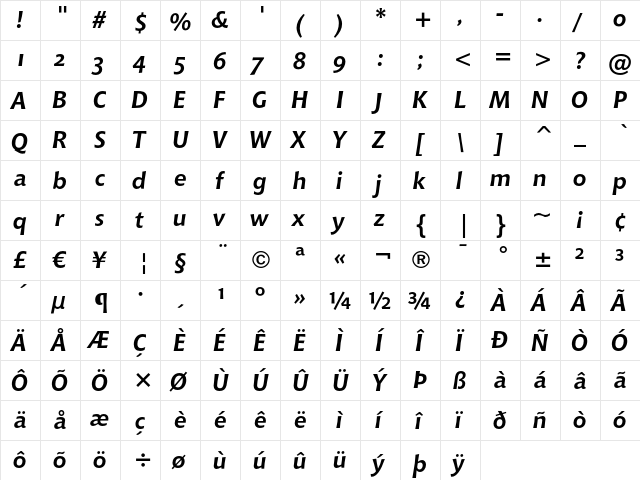
Bitstream Chianti Bold Italic OSF Font Preview
Design Context for Bitstream Chianti Typeface
Bitstream Chianti is a composed and adaptable typeface that performs quietly and consistently across a wide range of design contexts. The dynamic lean of this cut emphasises speed and emphasis in any layout. The heavy weight commands attention and anchors typographic hierarchies.
Pro Tip: Try Bitstream Chianti for annotation and caption copy alongside an upright companion — the contrast in angle creates a dynamic but ordered typographic system.